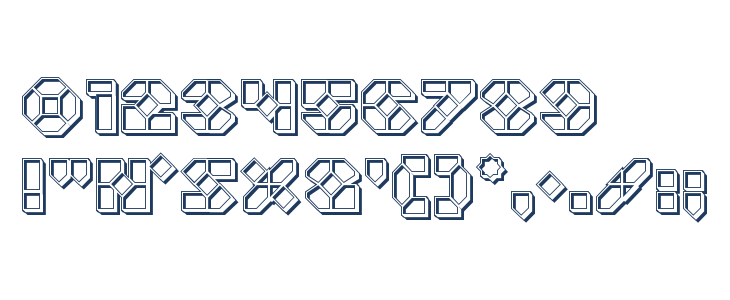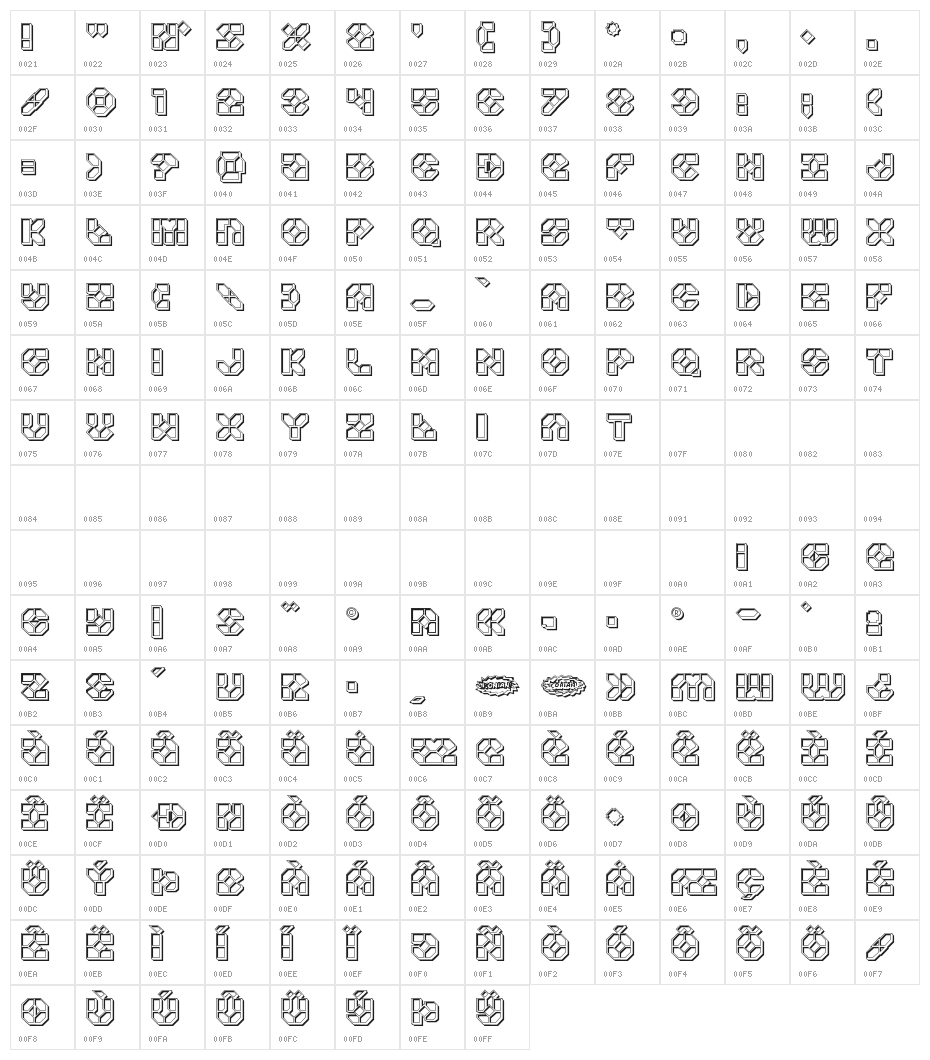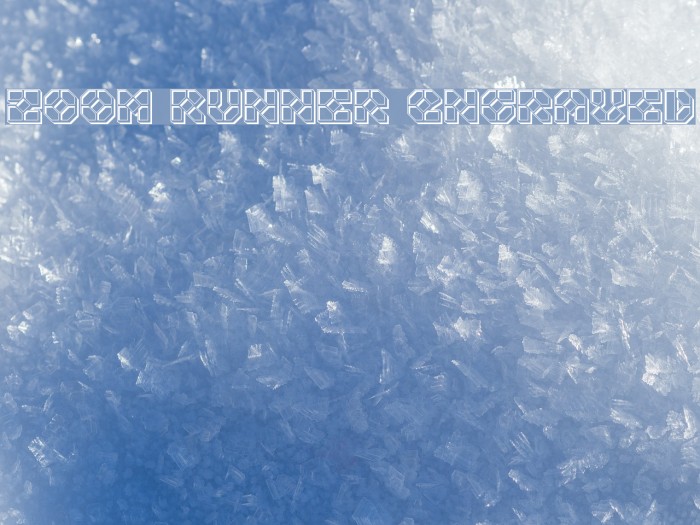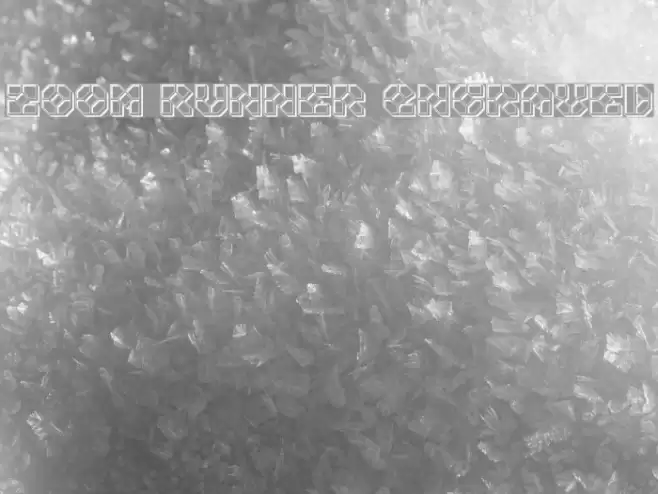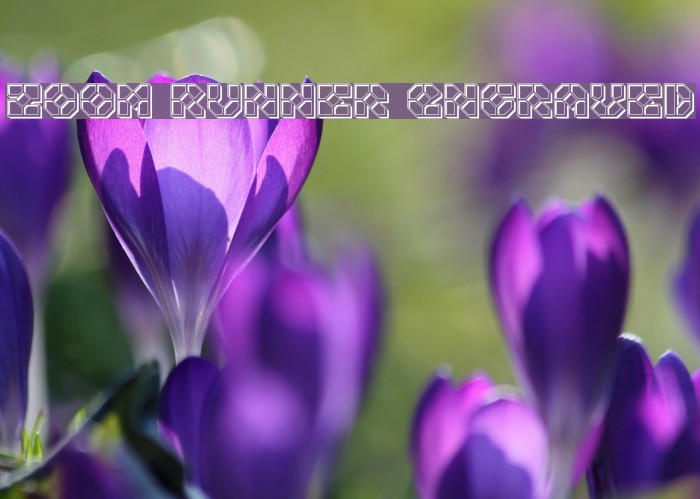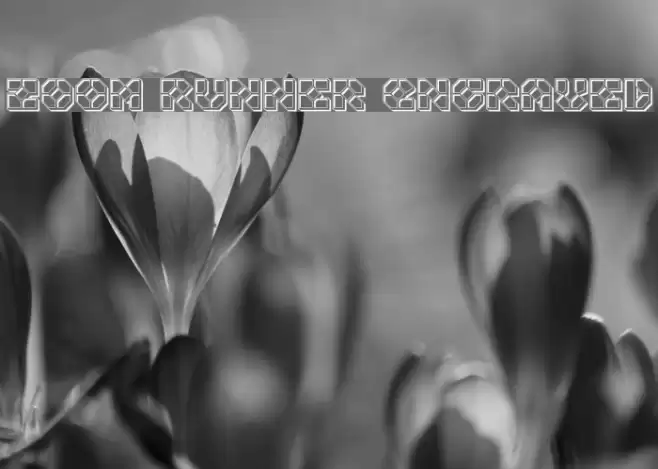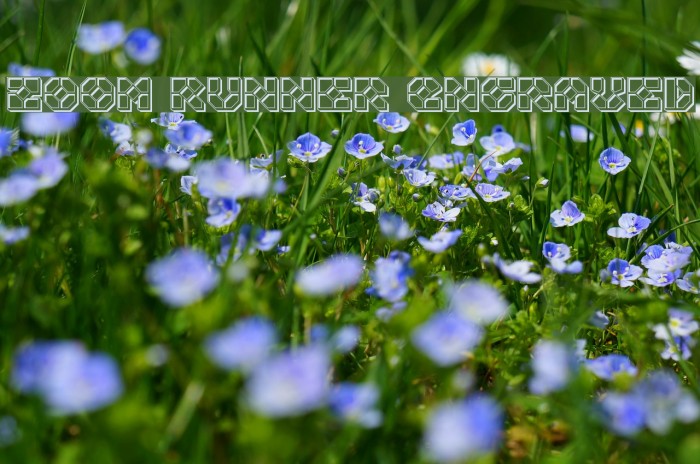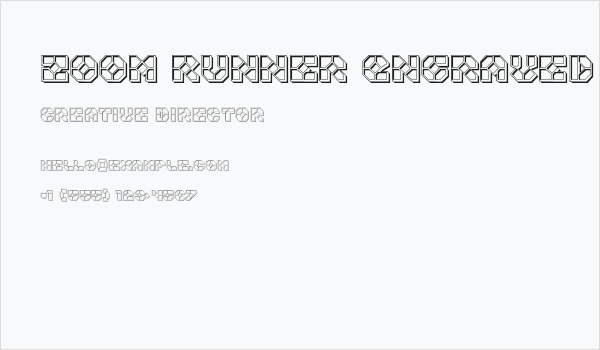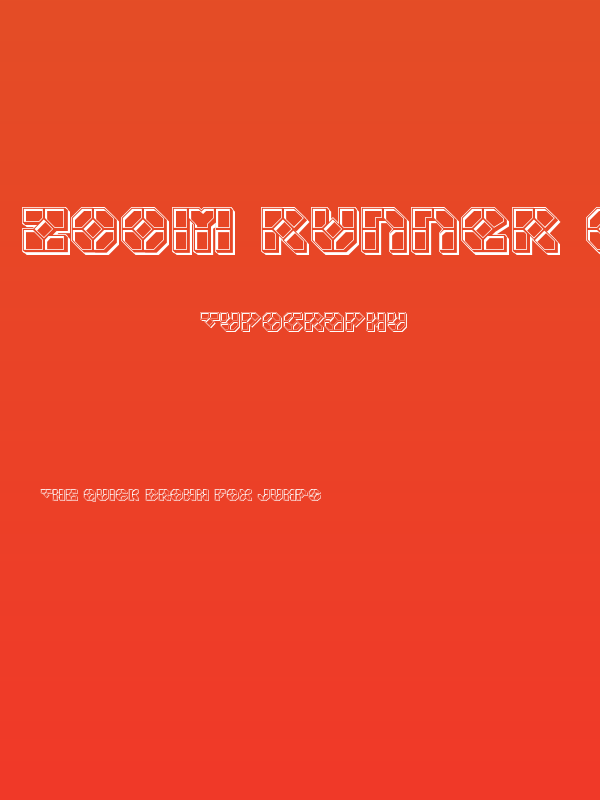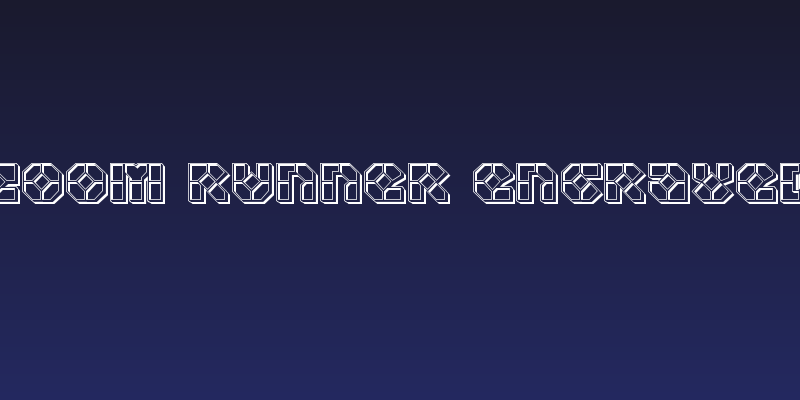
Zoom Runner Engraved Font
Zoom Runner Engraved Description
This font features a unique, geometric design with a three-dimensional effect. Each character is constructed with bold, angular lines that create an illusion of depth and perspective. The letters and numbers are enclosed within a hexagonal framework, giving them a futuristic and industrial appearance. The font is highly stylized, making it ideal for projects that require a modern and edgy look. The special characters maintain the same structural integrity, ensuring consistency across all glyphs. Its distinct style makes it stand out, perfect for attention-grabbing headlines or logos.
| Proposed Projects | Ideal for sci-fi themed designs, technology branding, video game titles, and modern posters. |